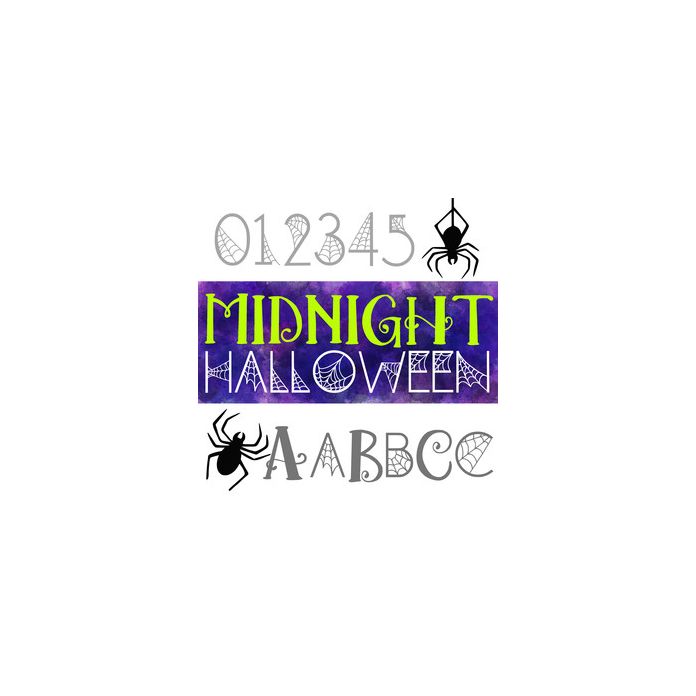
This font is a complimentary duo -- Uppercase is one style and lowercase is another, unique style. Use them separately or together, for easy coordination.